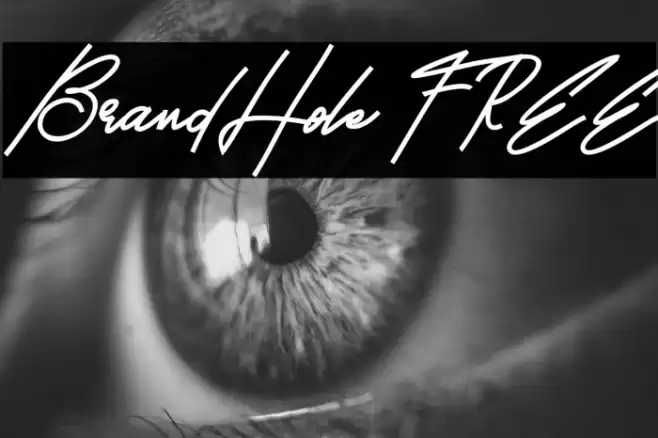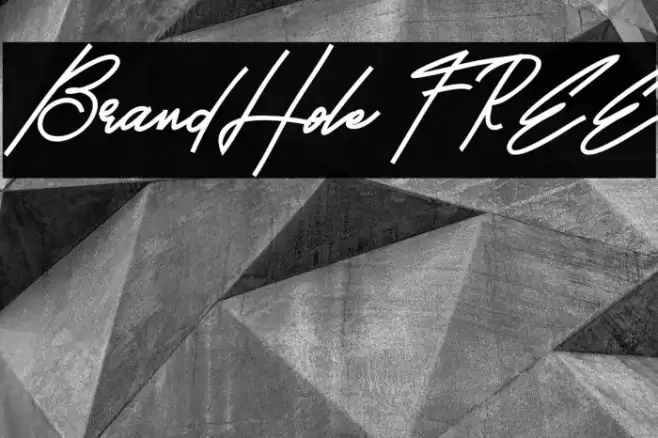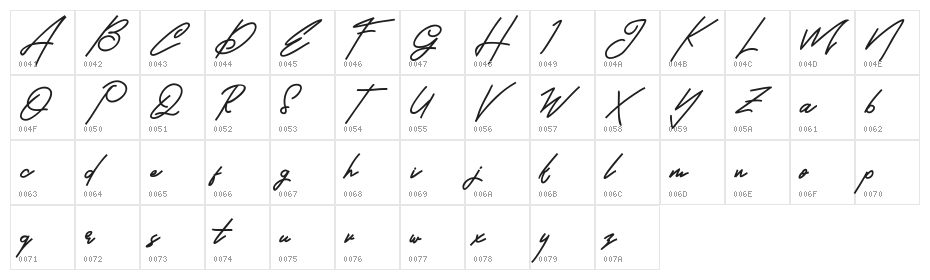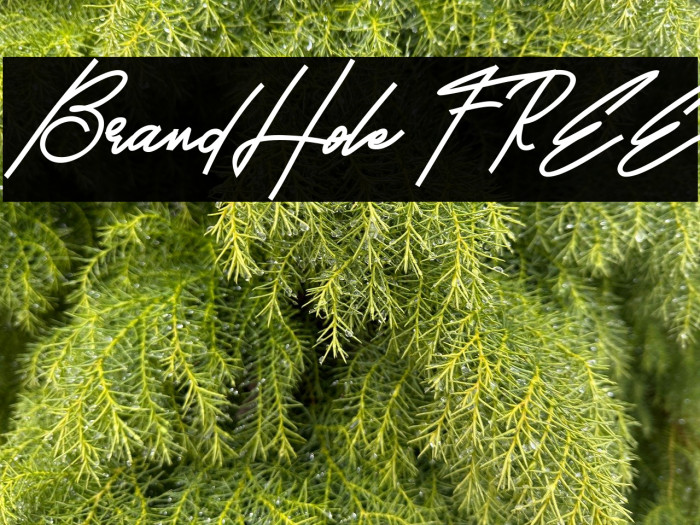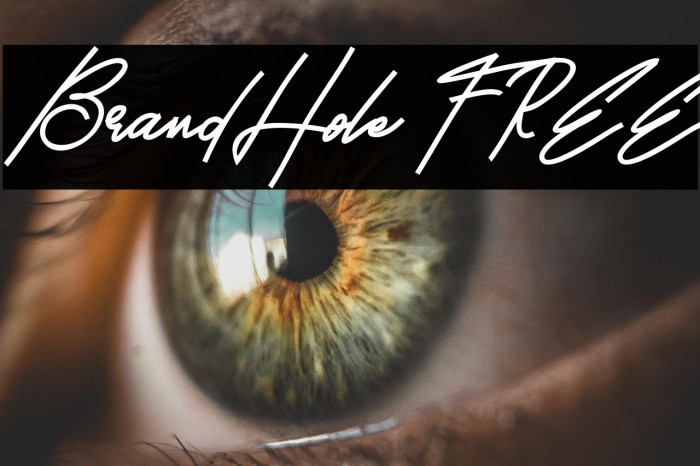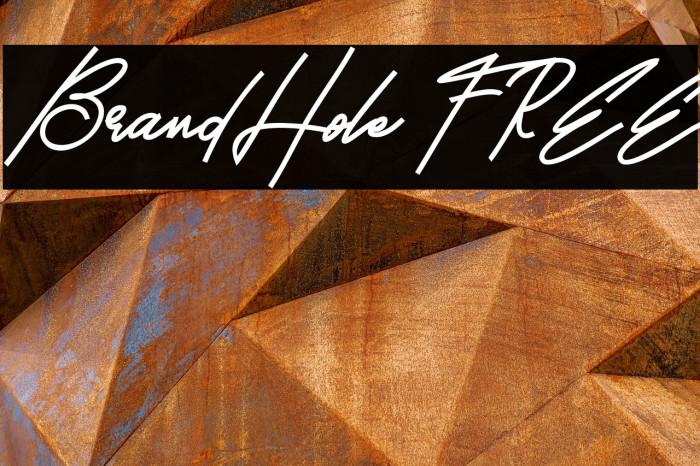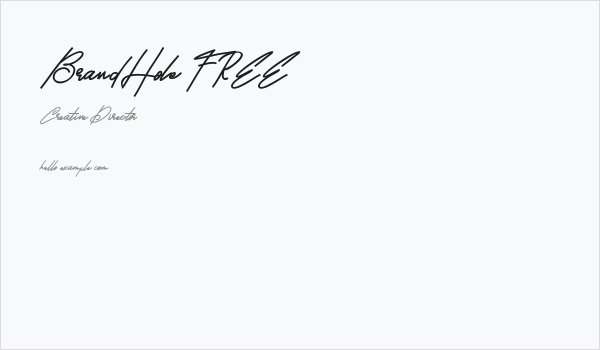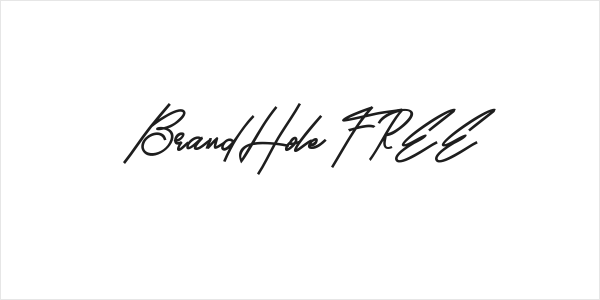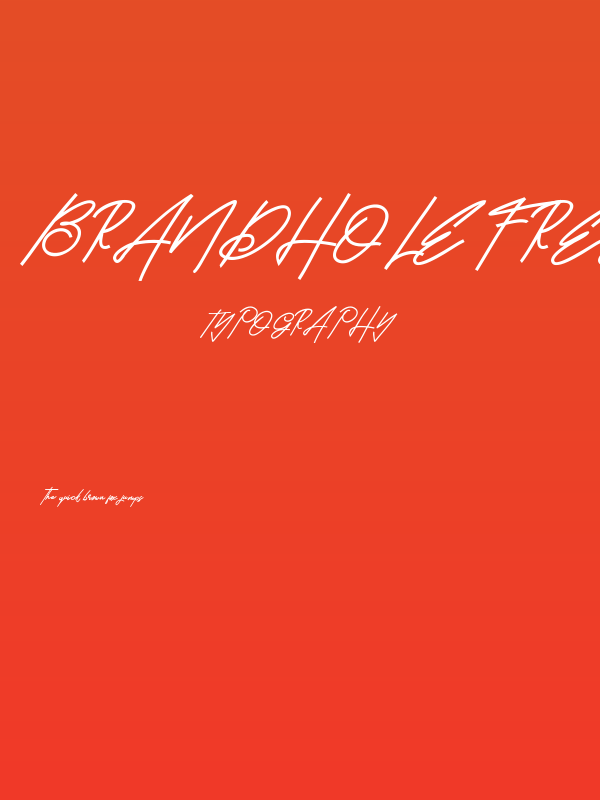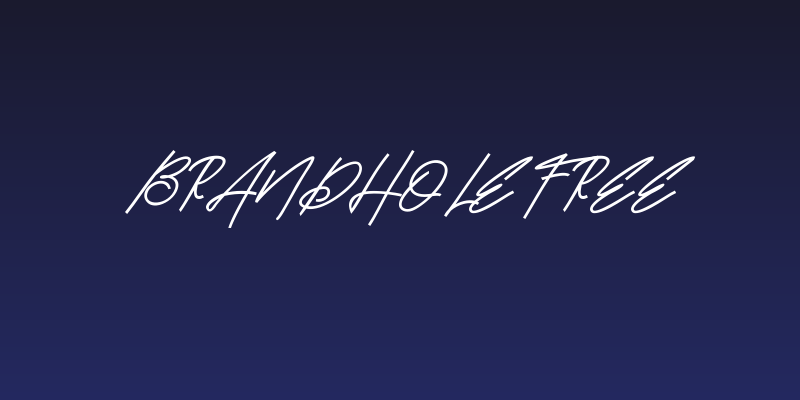
BrandHole FREE Font
BrandHole FREE Description
This font features a dynamic and expressive script style, characterized by its fluid, cursive strokes that emulate a handwritten appearance. The letters are interconnected, creating a seamless flow that enhances its elegant and personal touch. The uppercase letters are bold and slightly slanted, while the lowercase letters maintain a consistent rhythm, adding to its legibility despite the artistic flair. The numbers and special characters are crafted with the same attention to detail, ensuring a cohesive look across all elements. This font is ideal for projects that require a personal or creative touch, such as invitations, branding, or artistic designs.
A dynamic, cursive script font with a handwritten appearance from Regular fonts.
- Font: BrandHole FREE
- Proposed Projects: Ideal for invitations, branding, artistic designs, and personal projects.
- Character Spacing: Tight
- Use Case: Logos, Headlines, Artistic designs